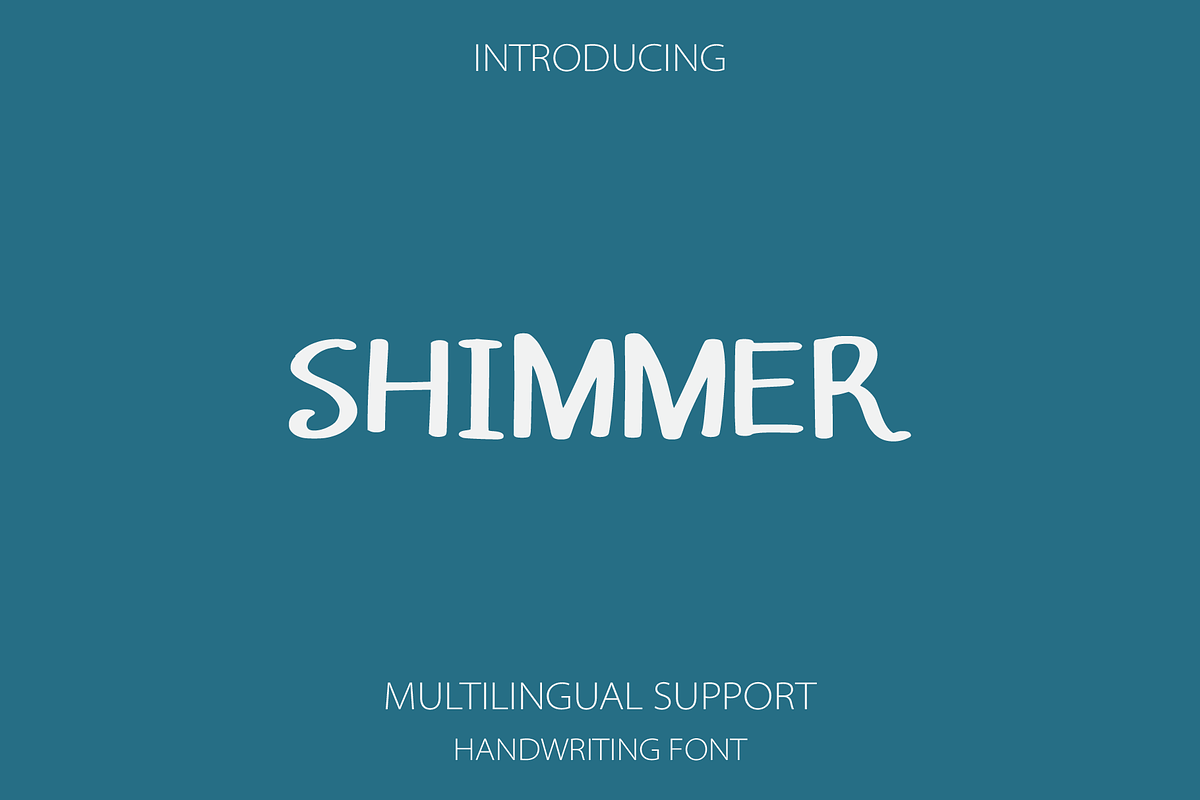
Shimmer a Handwriting Font Free Download
Shimmer a Handwriting Font Free Download is a delicate and graceful typeface that captures the natural flow of elegant handwriting. With its soft curves and smooth lines, this font is perfect for wedding invitations, branding, personal notes, social media content, and any project that calls for a personal, heartfelt touch. It exudes warmth, femininity, and a touch of sophistication.
Using the Shimmer a Handwriting Font Free Download adds a handwritten charm that feels authentic and refined. Whether you're designing for lifestyle brands, stationery, or inspirational quotes, Shimmer offers a beautifully legible script style that enhances your message with personality and elegance.